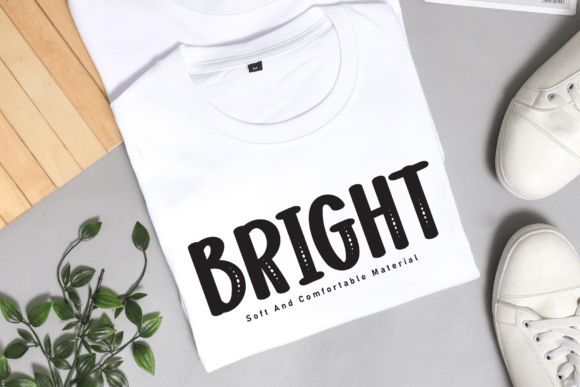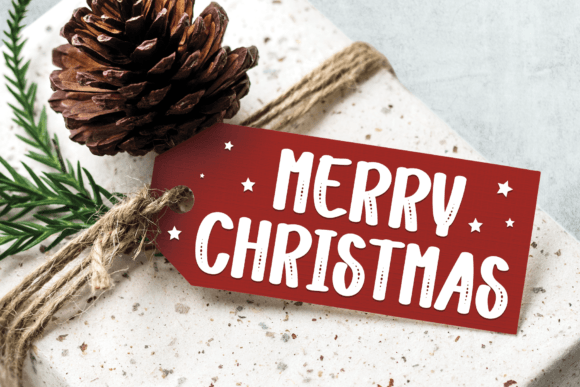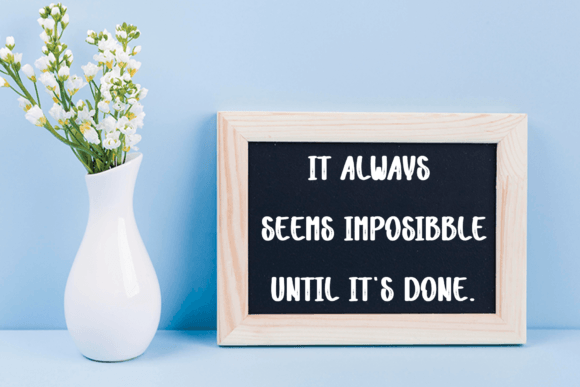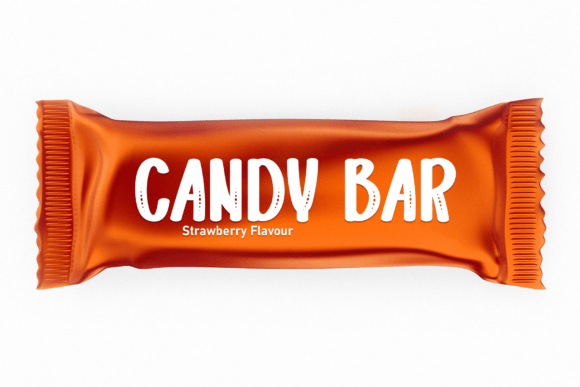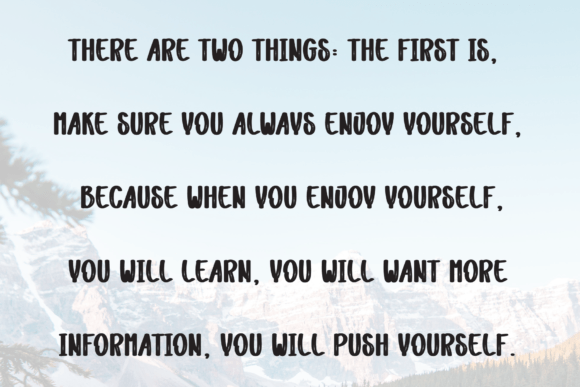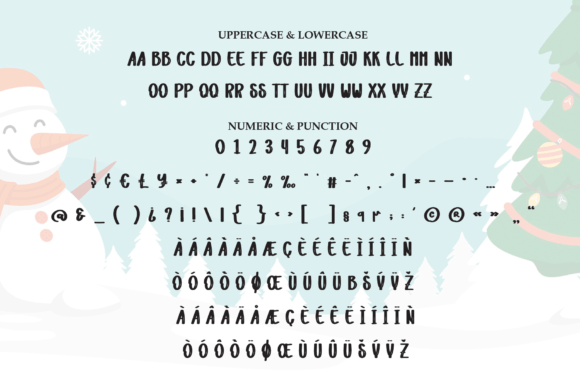
Introducing December Font: The Sweet and Friendly Handwritten Display Font
Are you looking for a font that can add a touch of warmth and personality to your designs? Look no further than December Font, a sweet and friendly handwritten display font that’s perfect for a variety of creative projects. In this article, we’ll take a closer look at December Font, its features, and how you can use it to elevate your designs.
What is December Font?
December Font is a beautiful, handwritten display font that’s designed to bring a touch of whimsy and fun to your designs. With its sweet and friendly style, this font is ideal for writing wedding invitations, cards, or any other design that might need a personal touch. Whether you’re a designer, crafter, or DIY enthusiast, December Font is a versatile and cute font that can help you create stunning designs.
Key Features of December Font
So, what makes December Font so special? Here are some of its key features:
- Handwritten style: December Font has a beautiful, handwritten style that’s perfect for adding a personal touch to your designs.
- Sweet and friendly: This font has a warm and inviting style that’s sure to capture the hearts of your audience.
- Versatile: December Font is a versatile font that can be used for a variety of design projects, from wedding invitations to social media graphics.
- Cute: Let’s face it – December Font is just plain cute! Its playful style is sure to add a touch of fun to your designs.
Uses for December Font
So, how can you use December Font in your designs? Here are some ideas to get you started:
- Wedding invitations: December Font is perfect for writing beautiful, one-of-a-kind wedding invitations that will set the tone for your special day.
- Cards and stationery: This font is also great for creating handmade cards and stationery that are sure to delight your friends and family.
- Social media graphics: December Font can add a touch of personality to your social media graphics, from Facebook posts to Instagram stories.
- DIY projects: Whether you’re making signs, banners, or other DIY projects, December Font is a great choice for adding a personal touch.
Tips for Using December Font
Here are some tips for getting the most out of December Font:
- Pair it with other fonts: December Font pairs well with other fonts, so don’t be afraid to experiment with different combinations.
- Use it for headings: This font is perfect for headings and titles, so use it to add a touch of personality to your designs.
- Experiment with colors: December Font looks great in a variety of colors, so don’t be afraid to experiment and find the perfect hue for your design.
In conclusion, December Font is a sweet and friendly handwritten display font that’s perfect for adding a touch of personality to your designs. With its versatile and cute style, this font is ideal for a variety of creative projects, from wedding invitations to social media graphics. Whether you’re a designer, crafter, or DIY enthusiast, December Font is a great choice for anyone looking to add a personal touch to their designs.